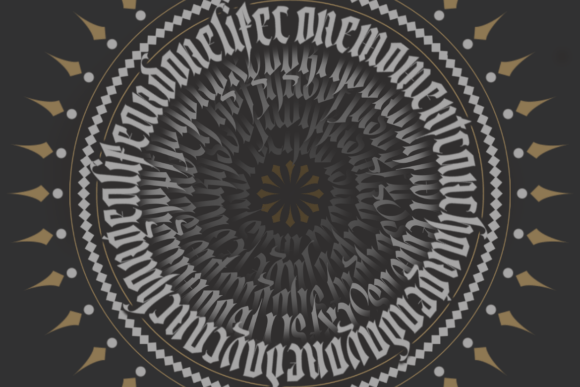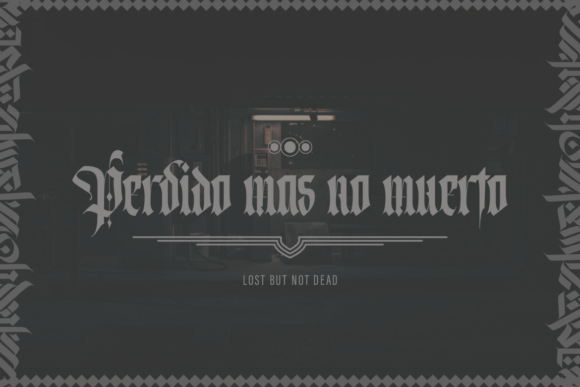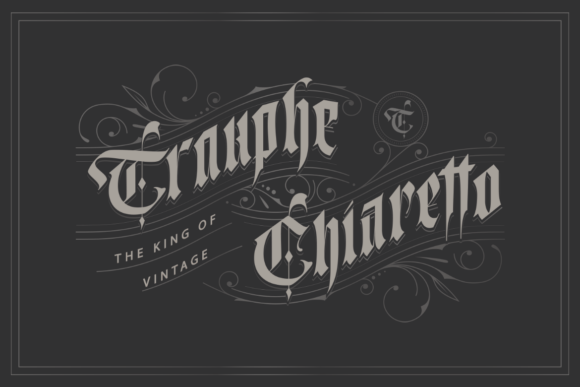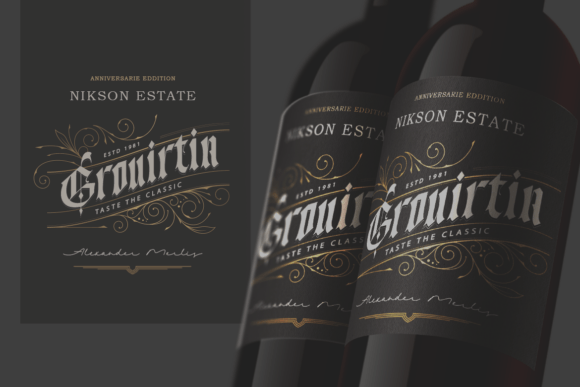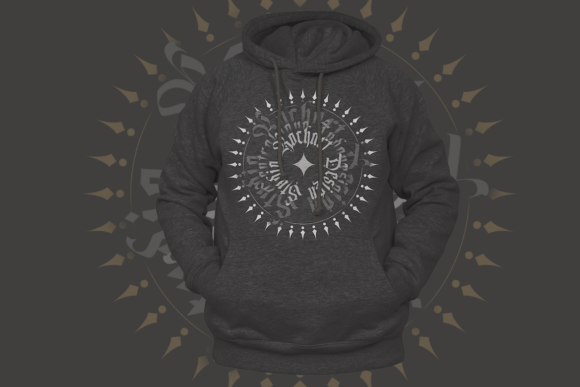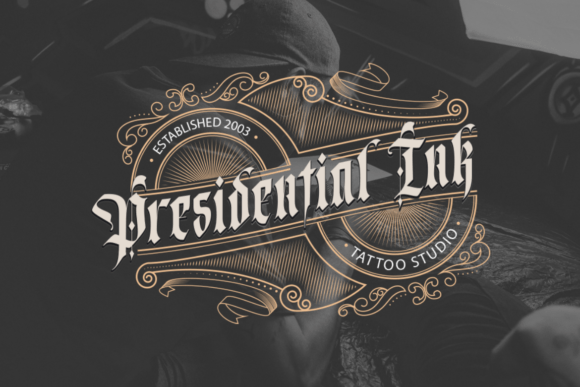
Unleash Your Creativity with Destroyers Font: A Unique Blend of Geometric Calligraphy
Are you a designer or crafter looking for a font that can add a touch of personality to your projects? Look no further than Destroyers Font, a stunning typeface that combines the elegance of geometric calligraphy with the imperfections of handmade craftsmanship. In this article, we’ll dive into the story behind Destroyers Font, its unique features, and how you can make the most of it in your designs.
The Making of Destroyers Font
Destroyers Font is a labor of love, carefully crafted with a calligraphy flat pen and then vectorized using Ai (Adobe Illustrator). The font was generated with a font creator, ensuring that every character is meticulously designed to perfection. The inspiration behind Destroyers Font comes from the amazing style of Raghuveer G, a renowned designer known for his innovative typography.
A Handmade Feel in Geometric Calligraphy
One of the standout features of Destroyers Font is its unique blend of geometric calligraphy and handmade imperfections. Some characters in the font are composed of broken strokes, giving it a delightfully human feel. This distinctive characteristic sets Destroyers Font apart from other geometric typefaces, making it perfect for designers who want to add a touch of personality to their work.
OpenType Features: Alternates and Ligatures
Destroyers Font is an excellent choice for designers and crafters who want to add a touch of sophistication and personality to their projects. Whether you’re working on a logo, branding, packaging, or social media graphics, Destroyers Font can help you create stunning visuals that capture attention.
Design Applications
Destroyers Font is versatile and can be used in a variety of design applications, including:
- Logo design: Create a unique and memorable logo with Destroyers Font’s geometric calligraphy.
- Branding: Use Destroyers Font to develop a consistent visual identity across your brand.
- Packaging: Add a touch of elegance to your packaging designs with Destroyers Font.
- Social media graphics: Create engaging social media graphics with Destroyers Font’s stylish alternates and ligatures.
| Font Name | Destroyers Font |
| Author | RochArt |